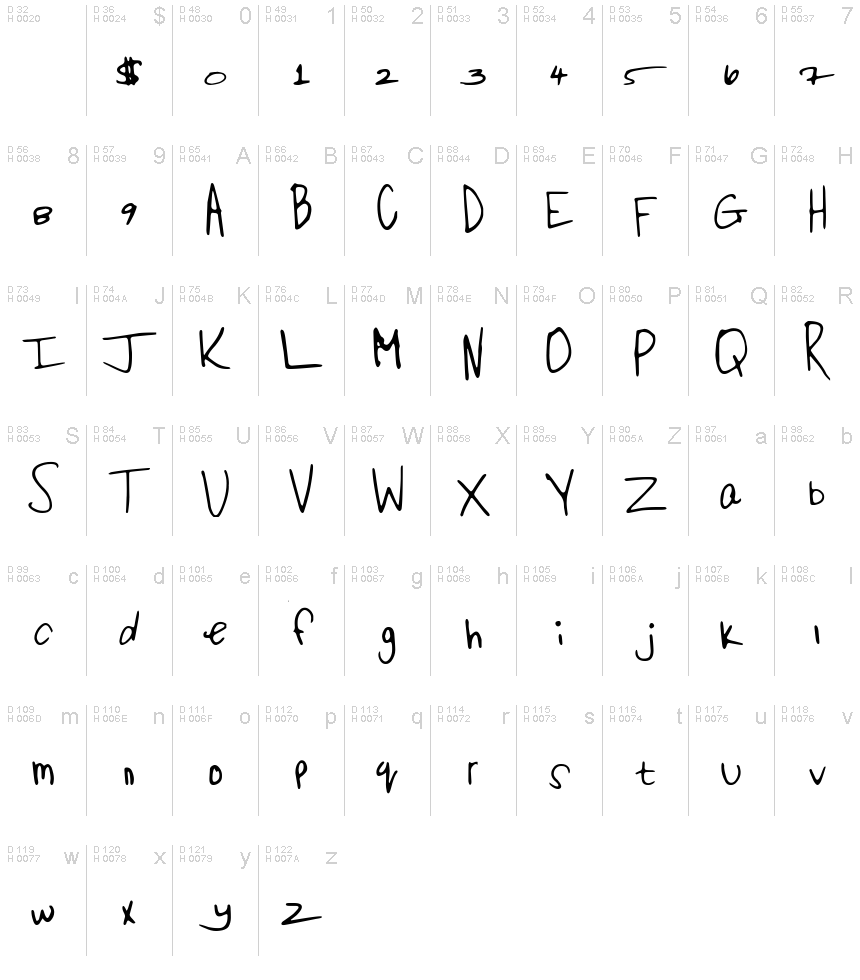
OpenHatch
Open Hatch is a captivating handwritten font designed by Xerographer Fonts' Max Infeld. Its flowing, organic strokes and distinct character shapes evoke a sense of playfulness and warmth, making it an excellent choice for a wide range of design applications. From eye-catching headlines and titles to charming product labels and packaging, Open Hatch's versatility shines through, infusing any project with a touch of authenticity and personality.
The font's expressive nature lends itself well to branding, editorial design, and even digital interfaces, where it can add a personal, handcrafted touch to the user experience.